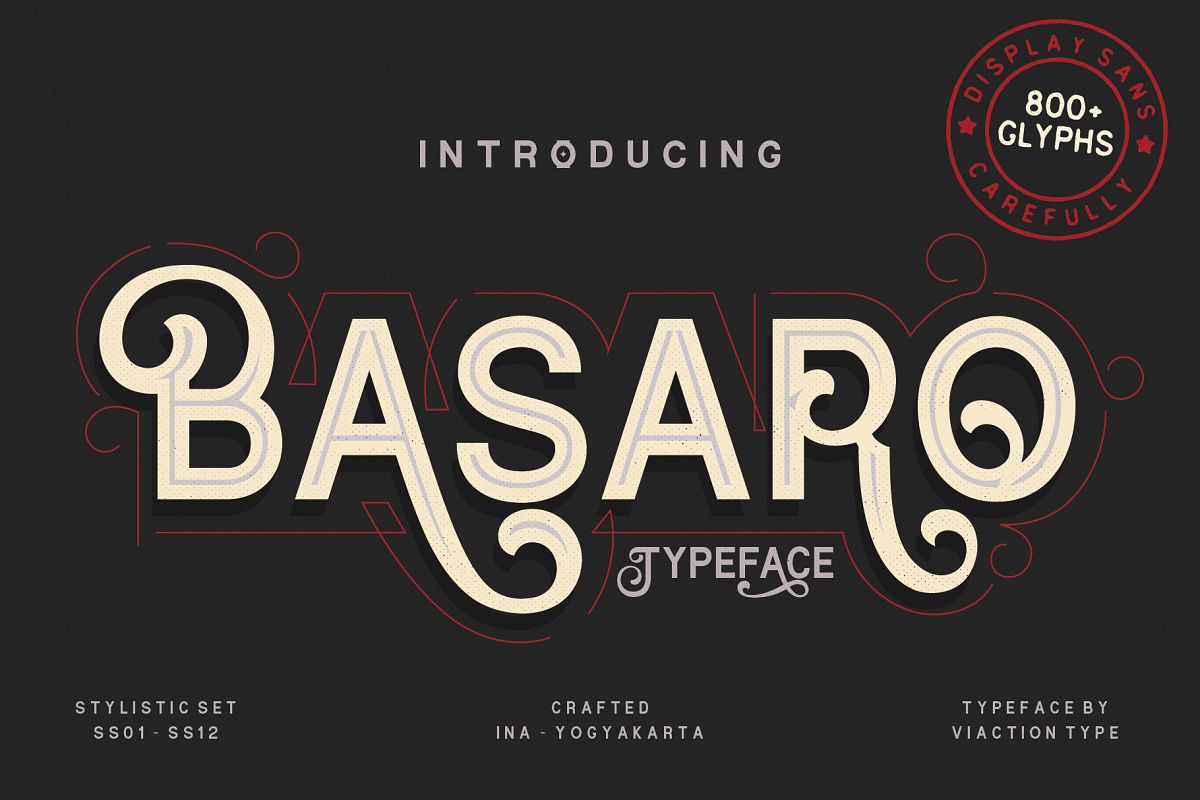
Basaro - Display Typeface
Basaro Typeface
New font release ! Basaro Typeface is all caps display sans serif with many letter combinations according to creation. This font is inspired by an elegant & classic style with various swash. Equipped with Stylistic Set: ss01 - ss12, 12 alternatives per letter. Very easy to use and perfect for headlines, logos, posters, packaging, T-shirts, postcards and much more.
• 312 Stylistic Alternates ( ss01 - ss12)